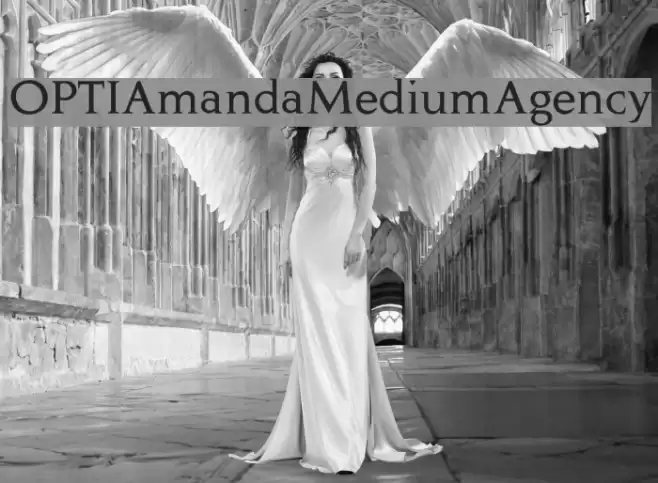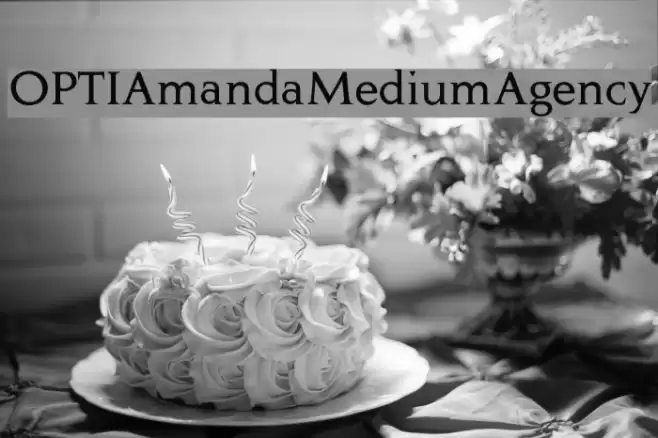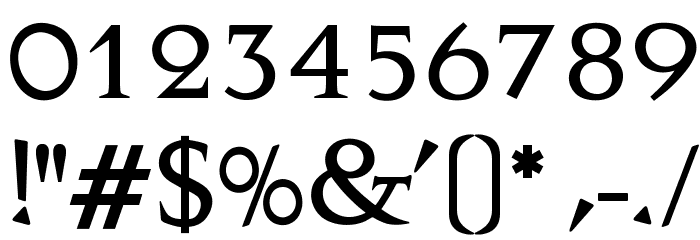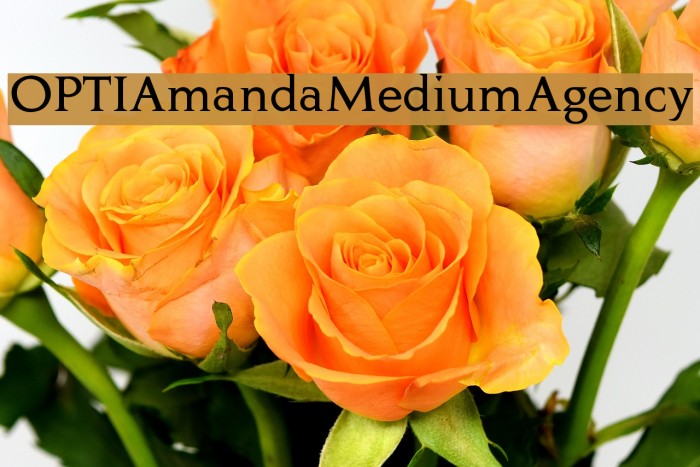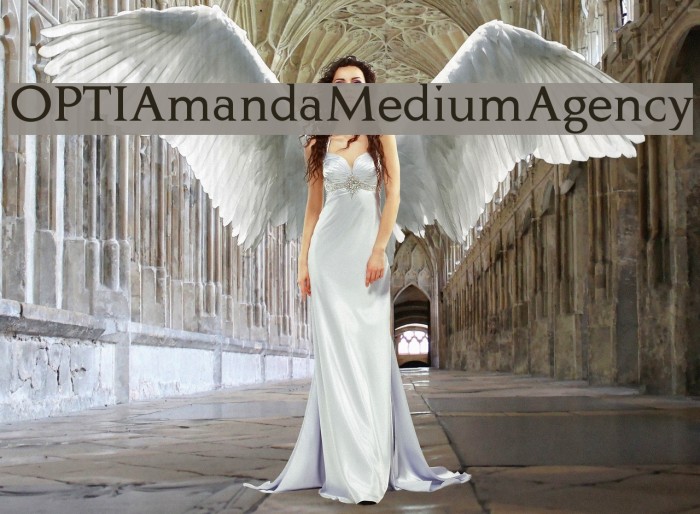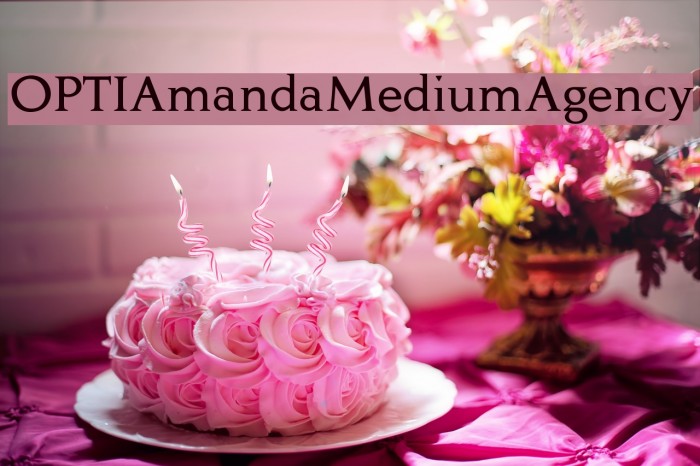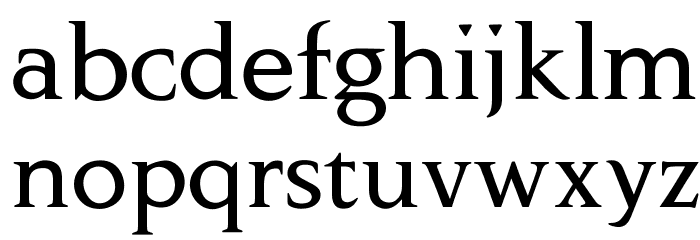
OPTIAmandaMediumAgency Font
OPTIAmandaMediumAgency Description
This font exhibits a classic serif style with a modern twist, characterized by its elegant and refined letterforms. The uppercase letters are bold and commanding, while the lowercase letters maintain a graceful and balanced appearance. The numerals are clear and distinct, ensuring readability across various applications. Special characters are thoughtfully designed, complementing the overall aesthetic. The font's medium weight provides a perfect balance between boldness and subtlety, making it versatile for both display and text use.
A modern serif font with elegant, balanced letterforms and medium weight from Uncategorized fonts.
- Proposed Projects: Ideal for editorial design, branding, book covers, and sophisticated advertising campaigns.